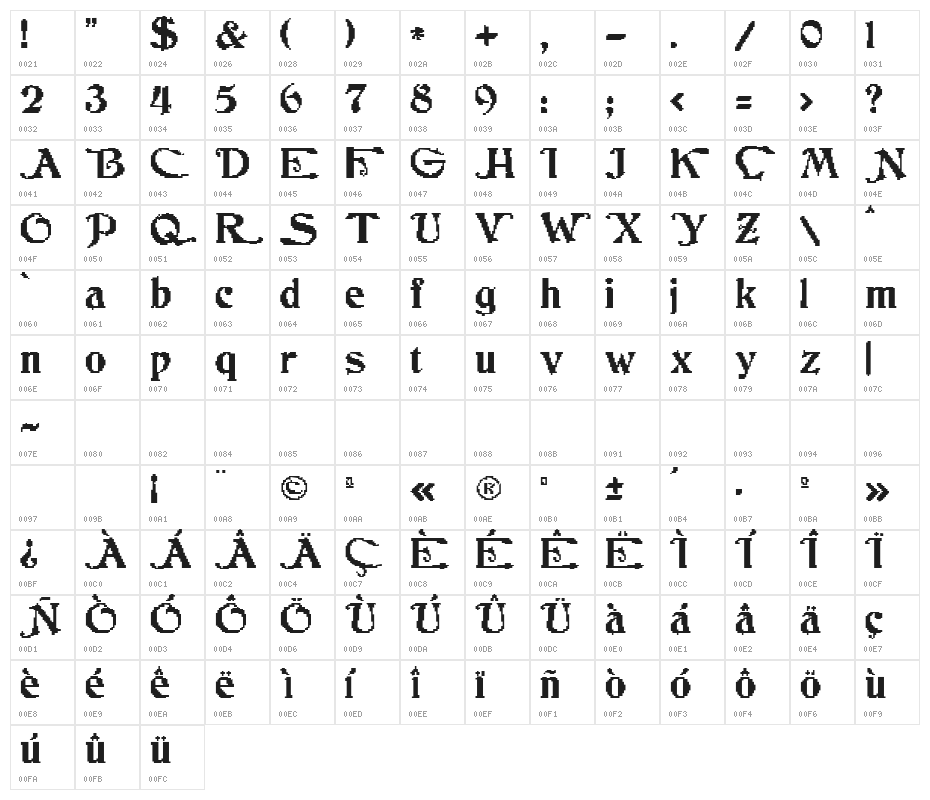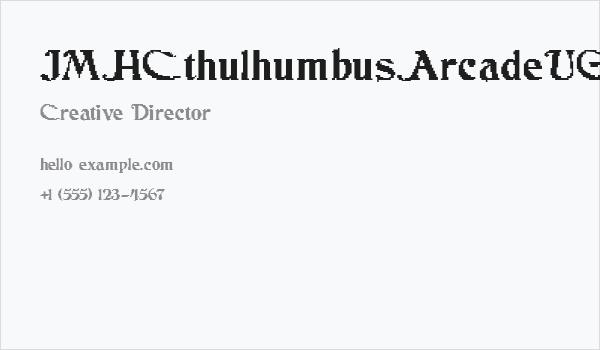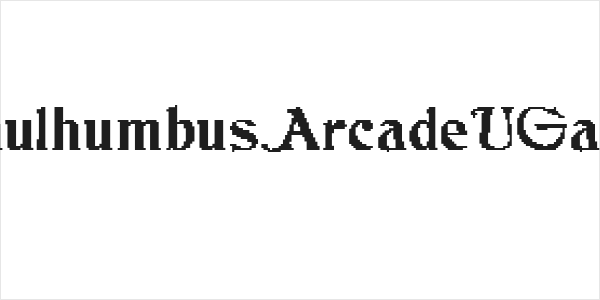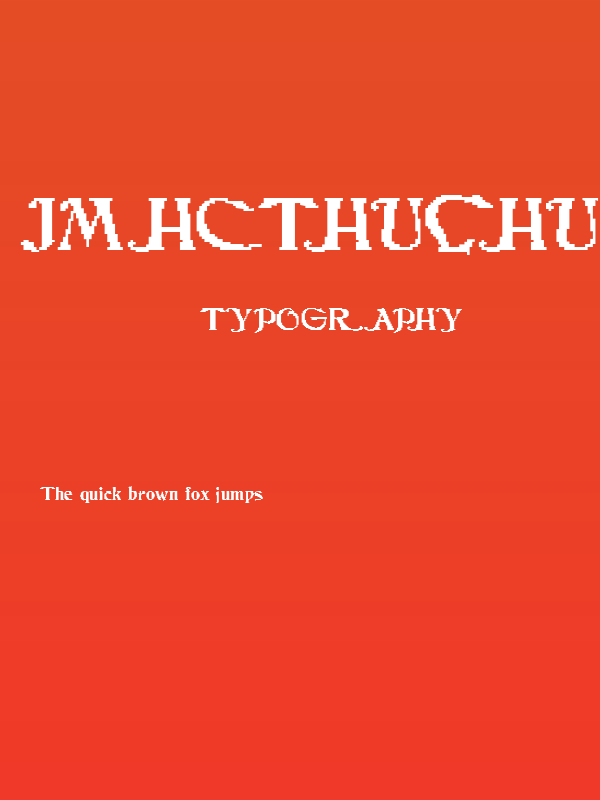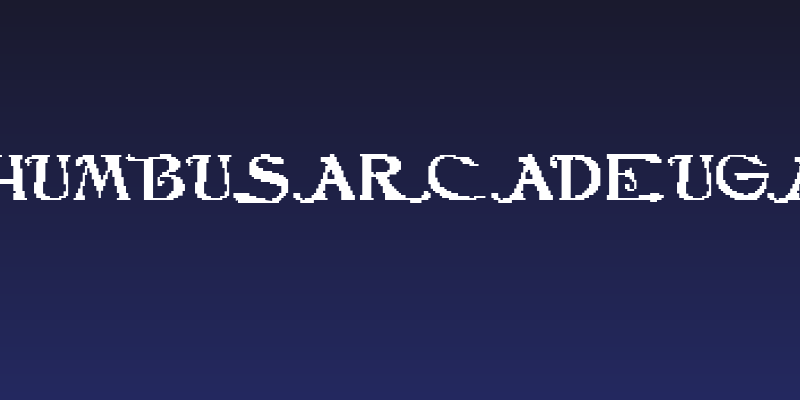
JMHCthulhumbusArcadeUGalt1-Regu Font
JMHCthulhumbusArcadeUGalt1-Regu Description
This font features a unique blend of vintage and decorative styles, characterized by its intricate and bold letterforms. The uppercase letters exhibit a distinct flair with sharp serifs and ornamental elements, giving them an old-world charm. The lowercase letters maintain a consistent boldness, with a slightly condensed appearance that enhances readability. Numbers and special characters follow the same stylistic cues, ensuring a cohesive look across all text. The font's design is reminiscent of classic arcade aesthetics, making it suitable for projects that require a touch of nostalgia and creativity.
Overall StyleVintage, Decorative
Proposed ProjectsIdeal for retro-themed designs, video game titles, posters, and branding that seeks a nostalgic or playful touch.